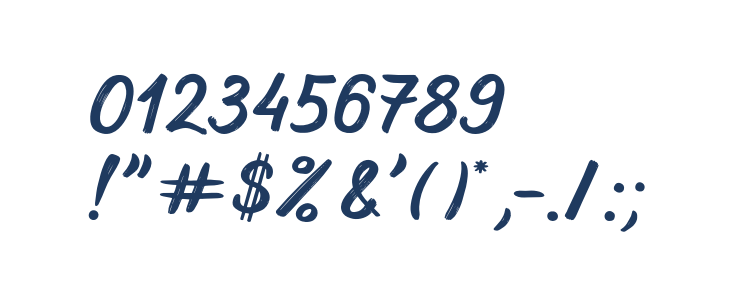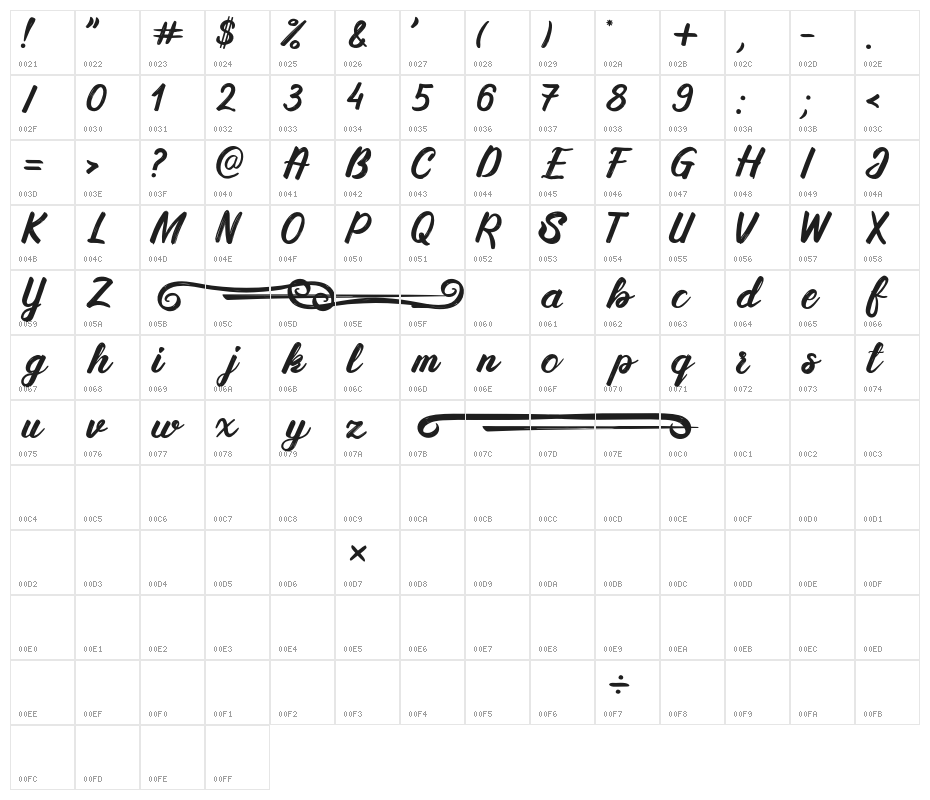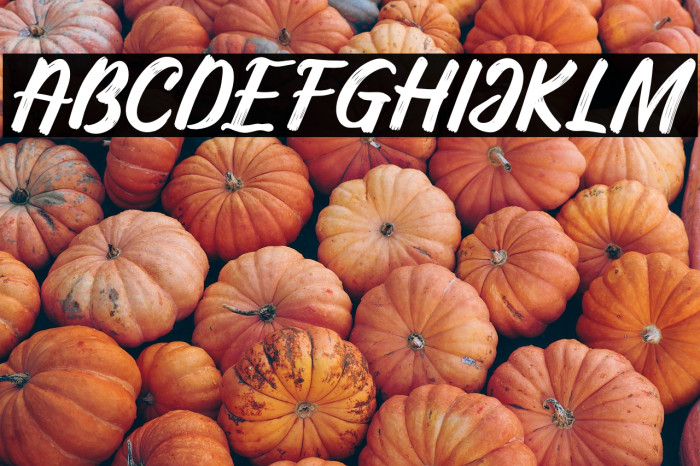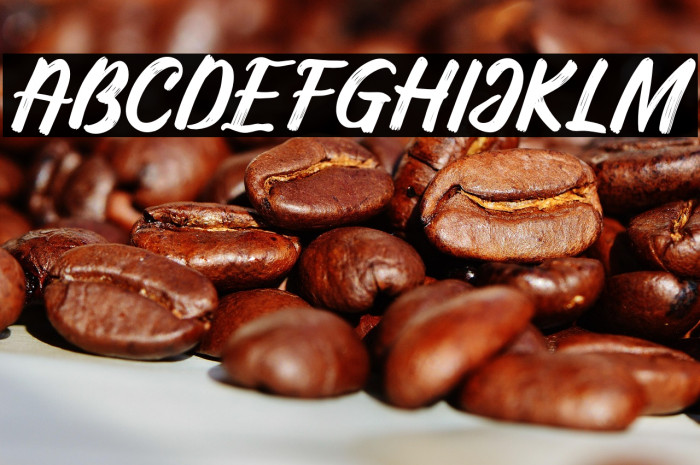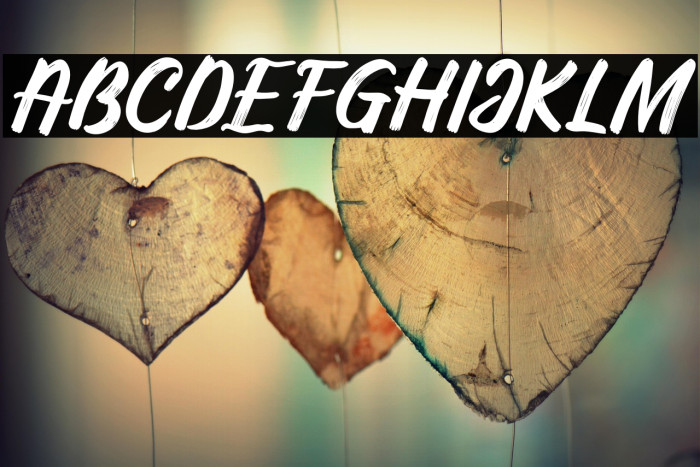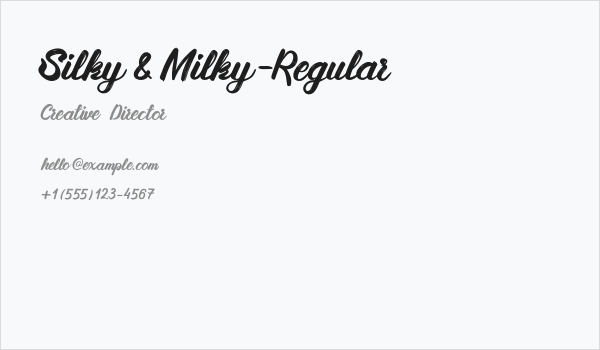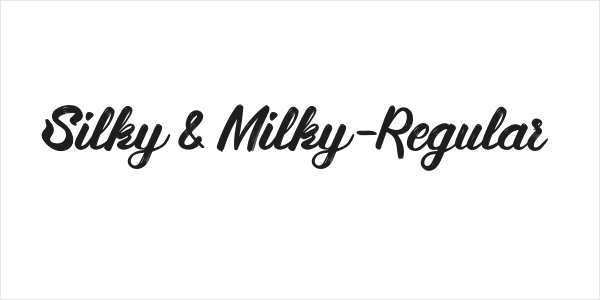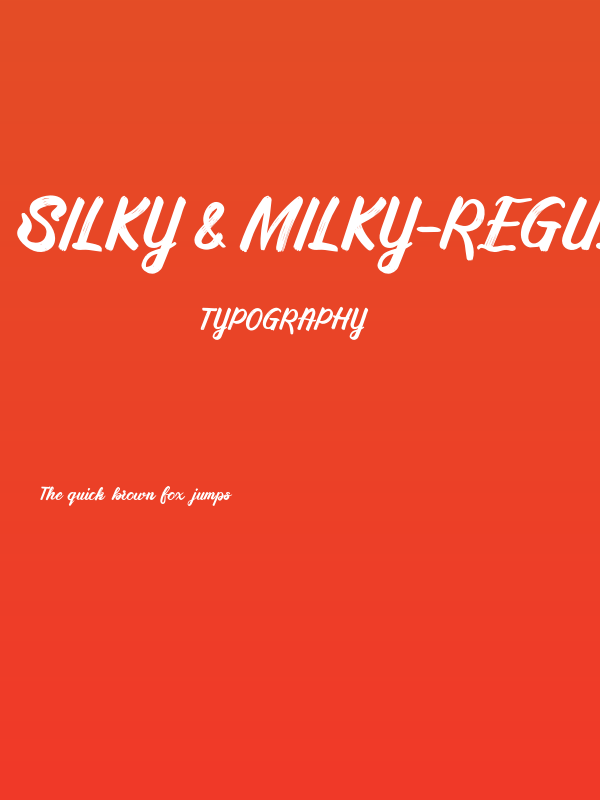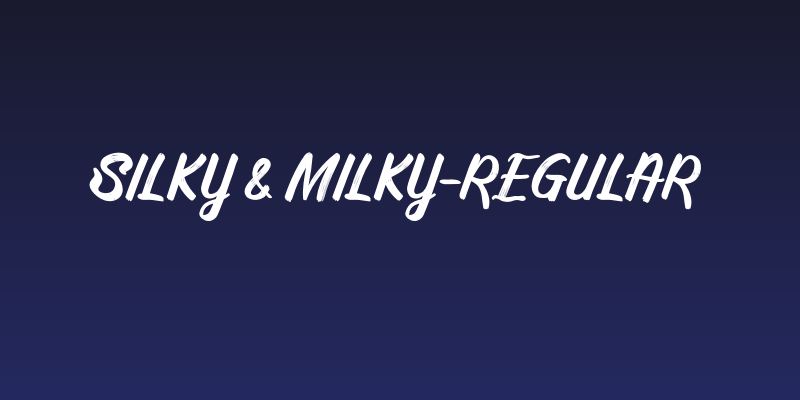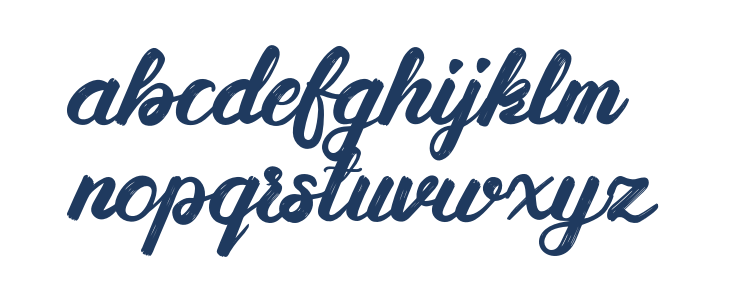
Silky&Milky-Regular Font
Silky&Milky-Regular Description
This font features a bold and expressive script style, characterized by its fluid and dynamic strokes. The letters are interconnected, creating a sense of movement and elegance. The uppercase letters are slightly more structured, while the lowercase letters exhibit a more casual and flowing appearance. The numerals and special characters maintain the same energetic style, making them cohesive with the alphabet. The brush-like texture adds a handcrafted feel, enhancing its artistic appeal. This font is ideal for projects that require a personal and creative touch.